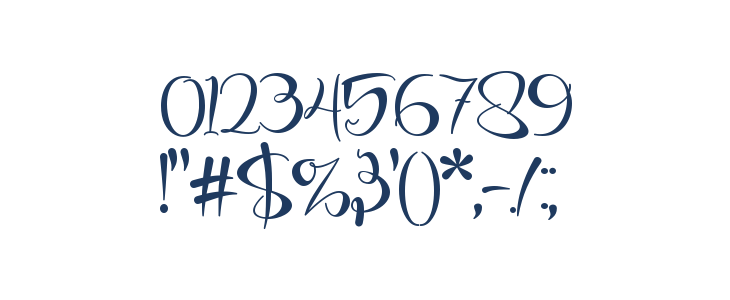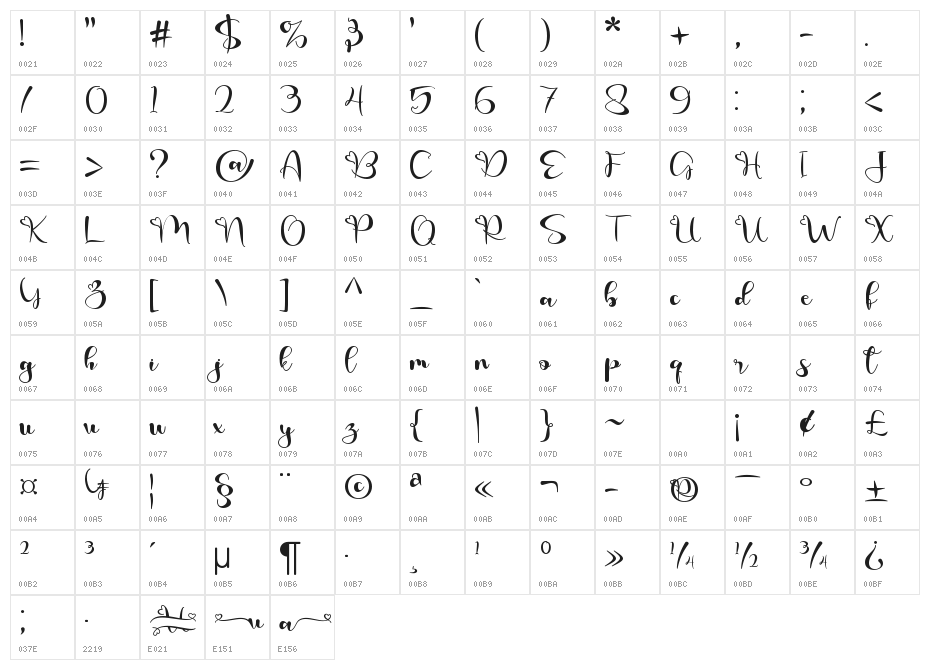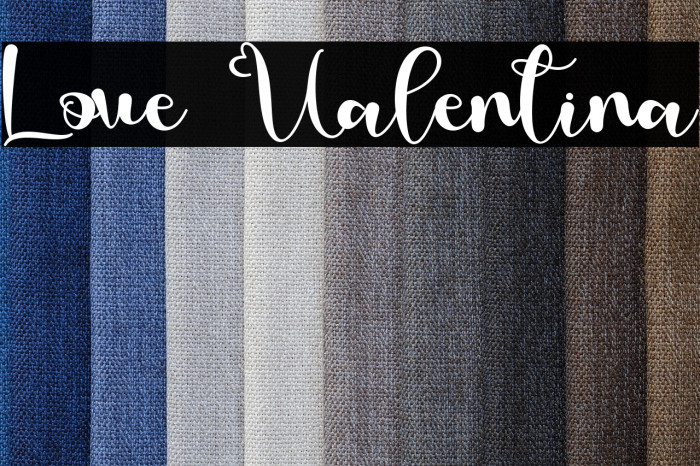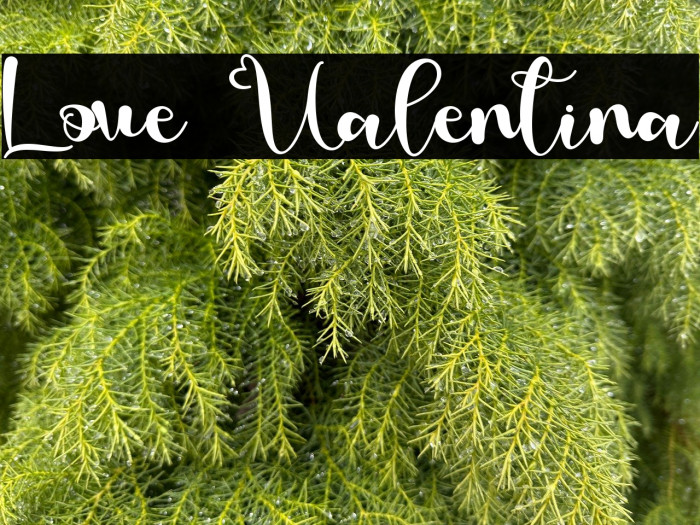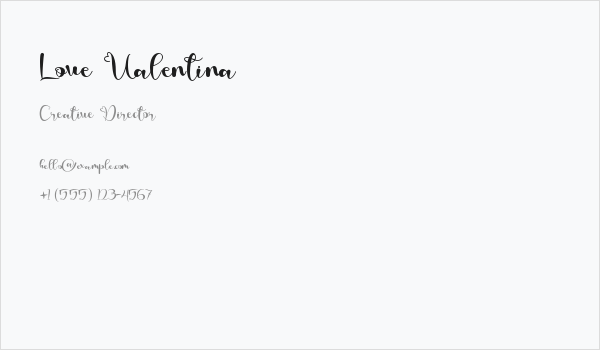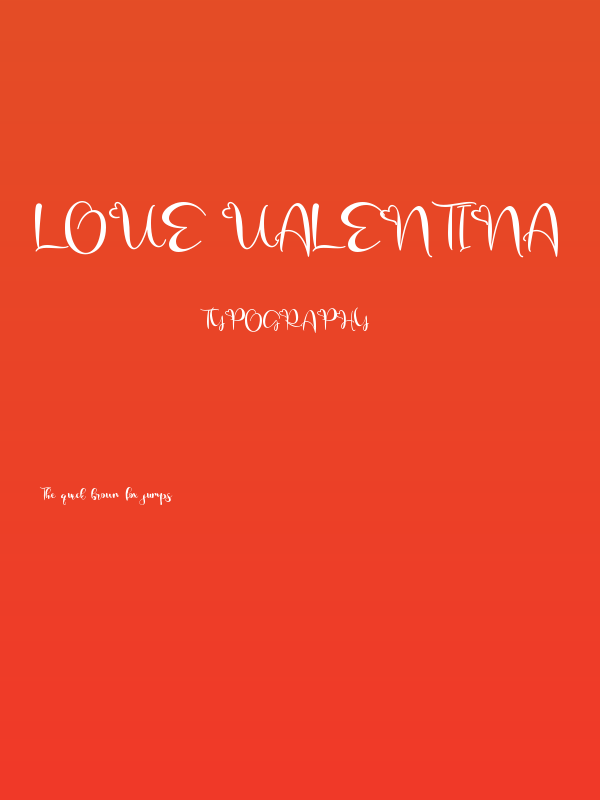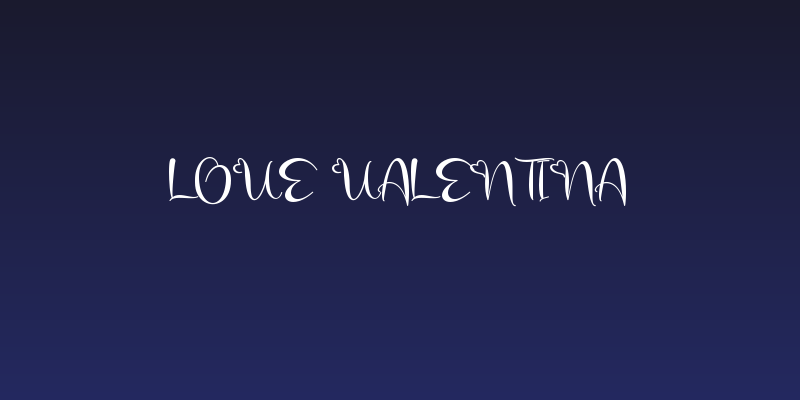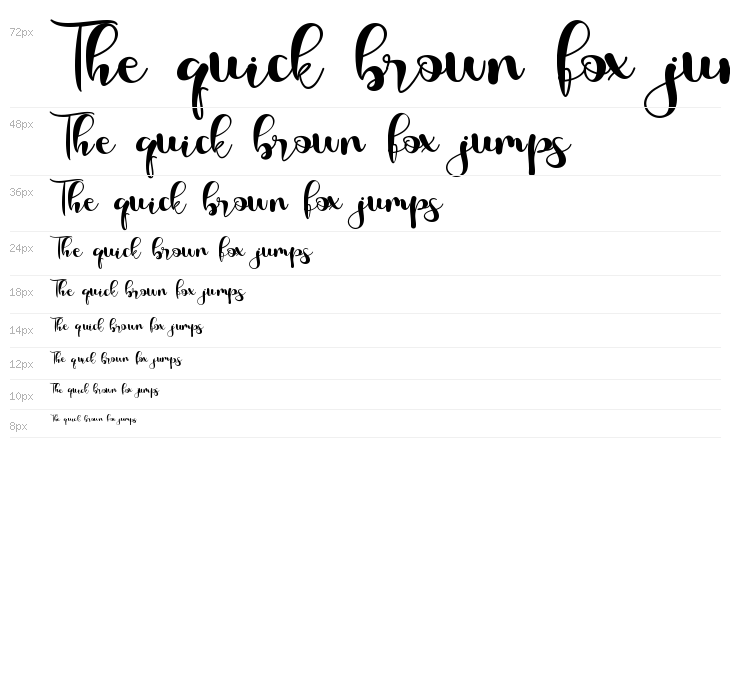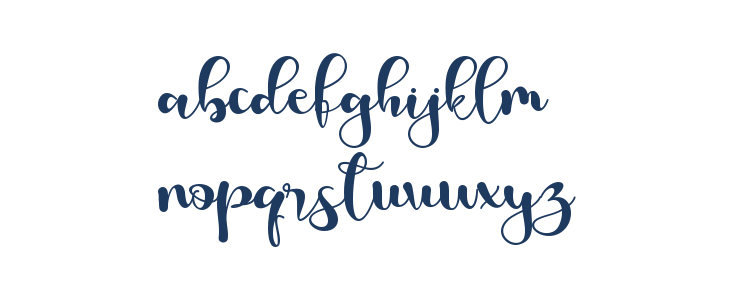
Love Valentina Font
Love Valentina Description
This font features a playful and elegant script style with a handwritten feel. The letters are connected in a fluid manner, creating a sense of movement and grace. The uppercase letters have a distinctive flair with loops and swirls, while the lowercase letters maintain a consistent flow. The numerals are bold and slightly rounded, complementing the overall style. Special characters are creatively designed, adding to the font's charm. This font is perfect for projects that require a personal touch or a romantic theme.
| Proposed Projects | Ideal for wedding invitations, greeting cards, logos, and branding materials that require a personal or romantic touch. |